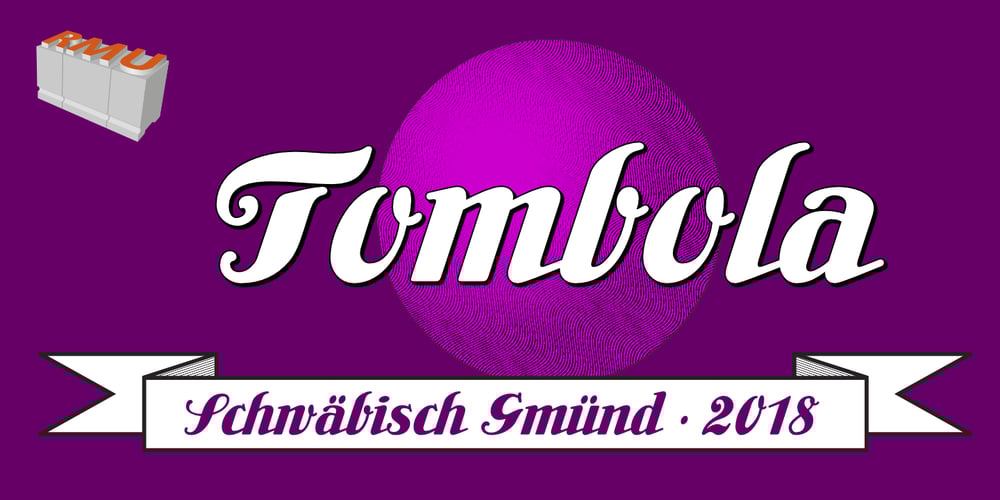
Tombola Font Family was designed by Ralph M. Unger and published by RMU. Tombola contains 1 styles and family package options. Inspired by painted letters of Otto Heim, “Tombola” reflects in a charming way the feelings of the Roaring Twenties, especially in advertisement and in the creation of posters.